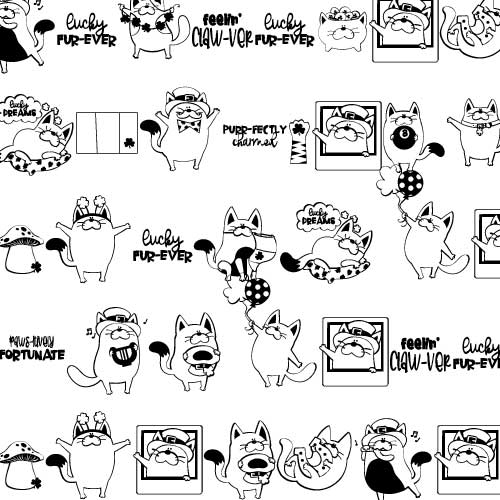
DB Check Meowt - Lucky - DB
This adorable doodlebat font features 26 whimsical cats living their best lucky life. Perfect for cards, crafts, gifts, planner stickers, scrapbook pages, classrooms, St. Patrick's Day and more!